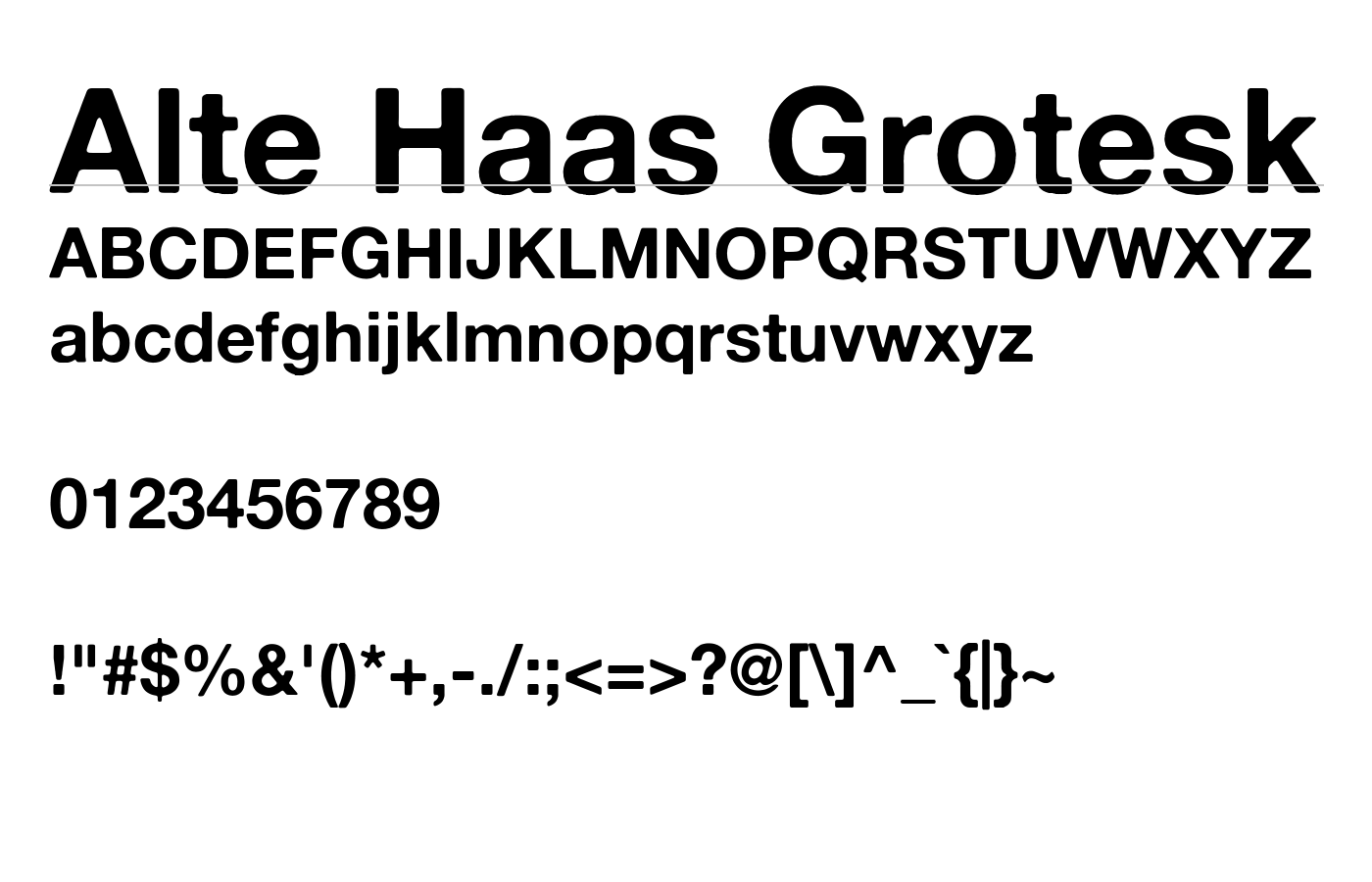
Alte Haas Grotesk is a bold, sans-serif typeface with a sturdy and clean design that combines a friendly yet professional tone. Its balanced proportions, medium x-height, and slightly rounded forms create an approachable and modern appearance, making it ideal for logos, headlines, and branding that seeks clarity and confidence. This font works well in both print and digital media where strong readability and timeless style are key.
Alte Haas Grotesk Font
About Alte Haas Grotesk Font
| Font family | Alte Haas Grotesk Font |
| Designer | Yann Le Coroller |